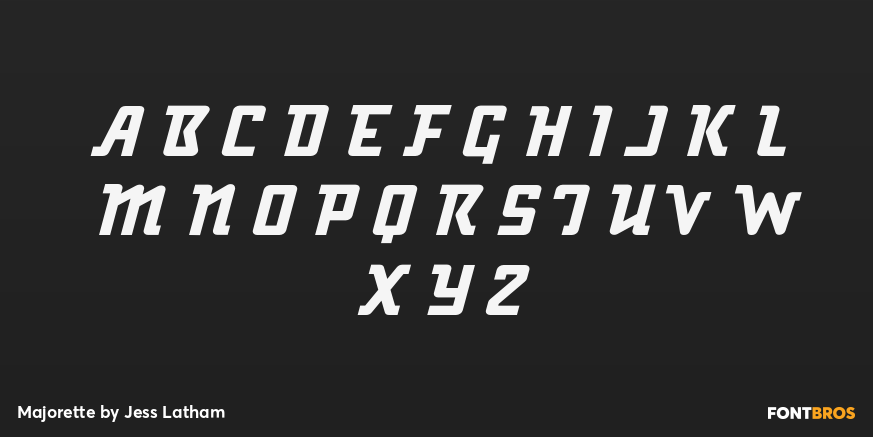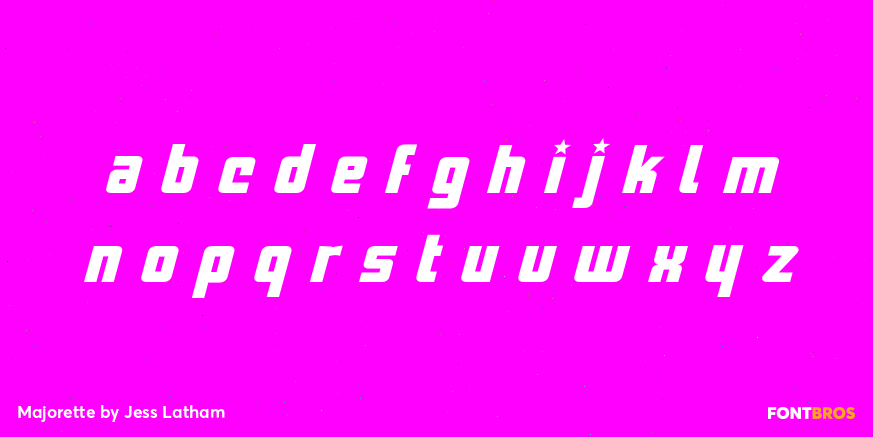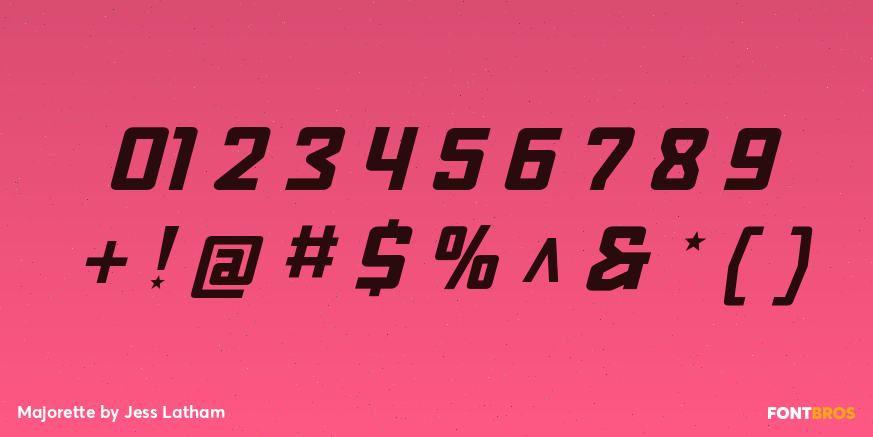
Majorette
Font Family by Jess Latham
A great new logo / headline font. Think 1976, school spirit, metalflake bicycles, custom t-top cars, metal mouth braces, orange popsicles and lemonade, and Marsha Brady hairstyles! Sign my yearbook?!